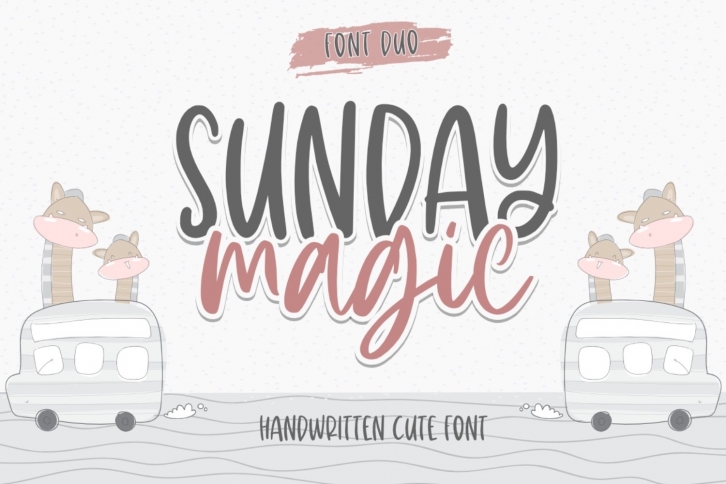
Sunday Magic is a trendy and unique font with an authentic style. It was designed by Typefar and it's a great choice for creative people who need such a font. It was released on September 11, 2020 and the file size is 20.50 MB. Sunday Magic will add an organic vibe to any design idea!